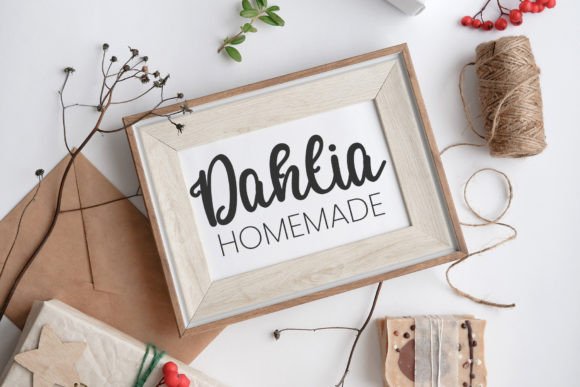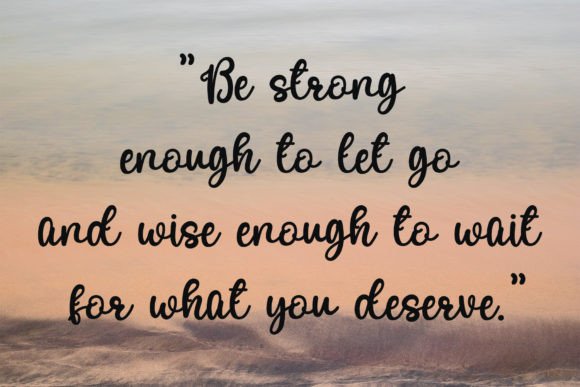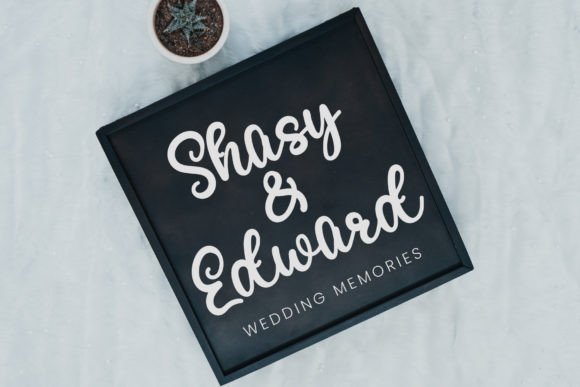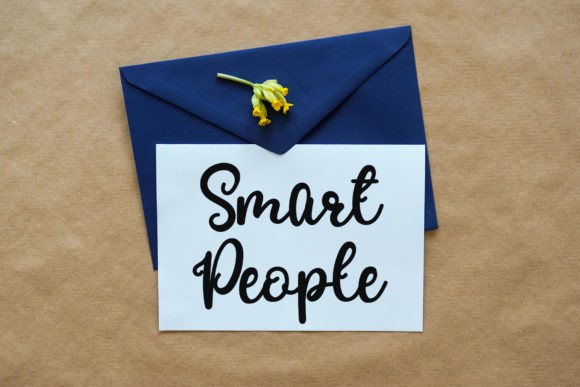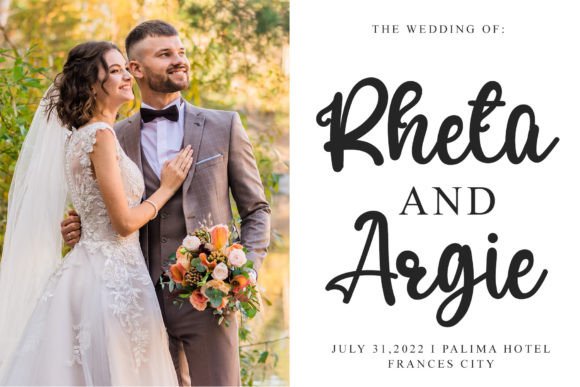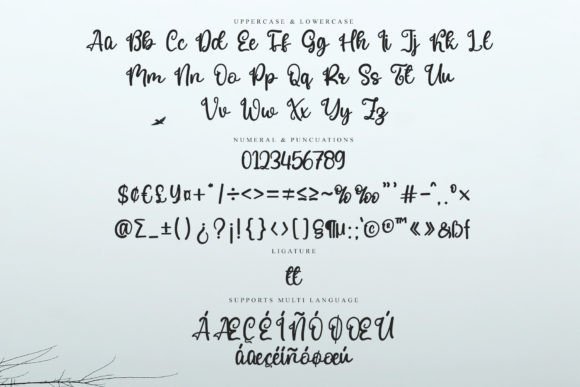
Introduction to Prickle Font
Have you ever stared at a blank canvas, waiting for inspiration to strike, only to have a single word or phrase pop into your head and suddenly, your creative project is transformed? For many designers, this is the moment when the perfect font can make all the difference. And for those who have been searching for that elusive combination of style and elegance, the Prickle Font may be the answer to their prayers.
As a valuable resource for designers, the Prickle Font offers a unique blend of sophistication and whimsy that is perfect for any creative project. With its bold, handwritten style, this font is sure to elevate the look of your designs while keeping them grounded and natural. Whether you’re working on a graphic design project, a logo, or even a personal blog, the Prickle Font is a high-quality design resource that is sure to impress.
Key Features of Prickle Font
- High-quality design resource with a transparent background, ideal for creative projects that require a unique aesthetic.
- Includes a range of font sizes, from 12 to 72 points, making it versatile for use in various design contexts.
- Resolution-independent, ensuring crisp and clear rendering regardless of the display resolution or output device.
- Unique characteristics include a bold, prickly texture and an elegant, cursive script, making it perfect for adding a touch of whimsy to creative projects.
- Supports a wide range of languages, including Latin, Cyrillic, and Greek alphabets, making it a valuable resource for designers working on international projects.
- Comes with a comprehensive character set, including uppercase and lowercase letters, numerals, punctuation marks, and special characters.
Honest Review: Prickle Font
As a designer, I’m always on the lookout for high-quality design resources to elevate my creative projects. The Prickle Font caught my attention with its unique and quirky feel. In this review, I’ll share my honest thoughts on its features and limitations.
- ✨ Unique and expressive letterforms that add a touch of whimsy to any design
- ✨ Clean and crisp design that’s perfect for digital and print projects
- ⚠️ Limited character set, which may not be suitable for complex text-heavy designs
- ⚠️ Not ideal for projects requiring a transparent background, as the font’s texture may show through
Overall, the Prickle Font is a great addition to any designer’s toolkit. Its unique personality and high-quality design make it perfect for creative projects where you want to add a bit of flair. While it may not be suitable for every project, it’s definitely worth considering for those looking to add a touch of whimsy to their designs.
Prickle Font Overview
The Prickle Font is a unique and versatile design resource that can elevate your creative project with its high quality and transparent background. This free download is perfect for designers looking for a fresh and modern touch.
Common Use Cases for Prickle Font
The Prickle Font is perfect for a variety of creative projects, including branding, marketing materials, and even personal projects. Its high quality and transparent background make it a great choice for designers looking for a fresh and modern touch.